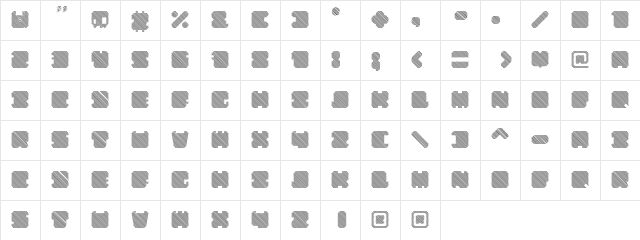
SHD TechnoType Italic Free Font
SHD TechnoType Italic
Foundry: Marc B￿
Designer: Marc B￿
Complete SHD TechnoType Italic glyph index. Displaying only characters natively supported by SHD TechnoType Italic font.
Design Context for SHD TechnoType
SHD TechnoType has a distinctly futuristic character, with geometric precision and clean angles that feel at home in technology, gaming, and sci-fi contexts. The slanted form adds forward momentum and visual energy.
Who designed the SHD TechnoType Italic font?